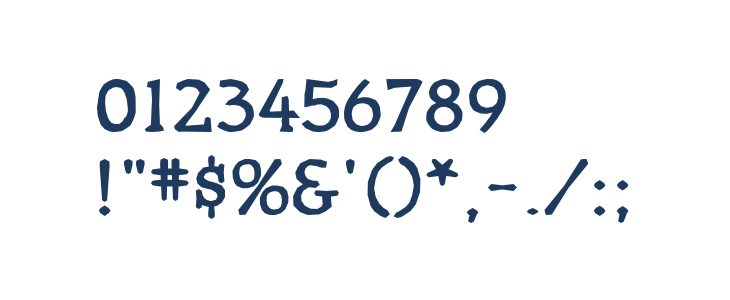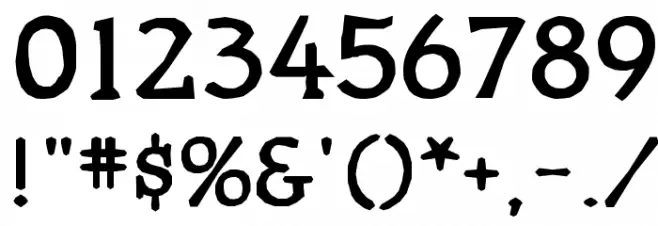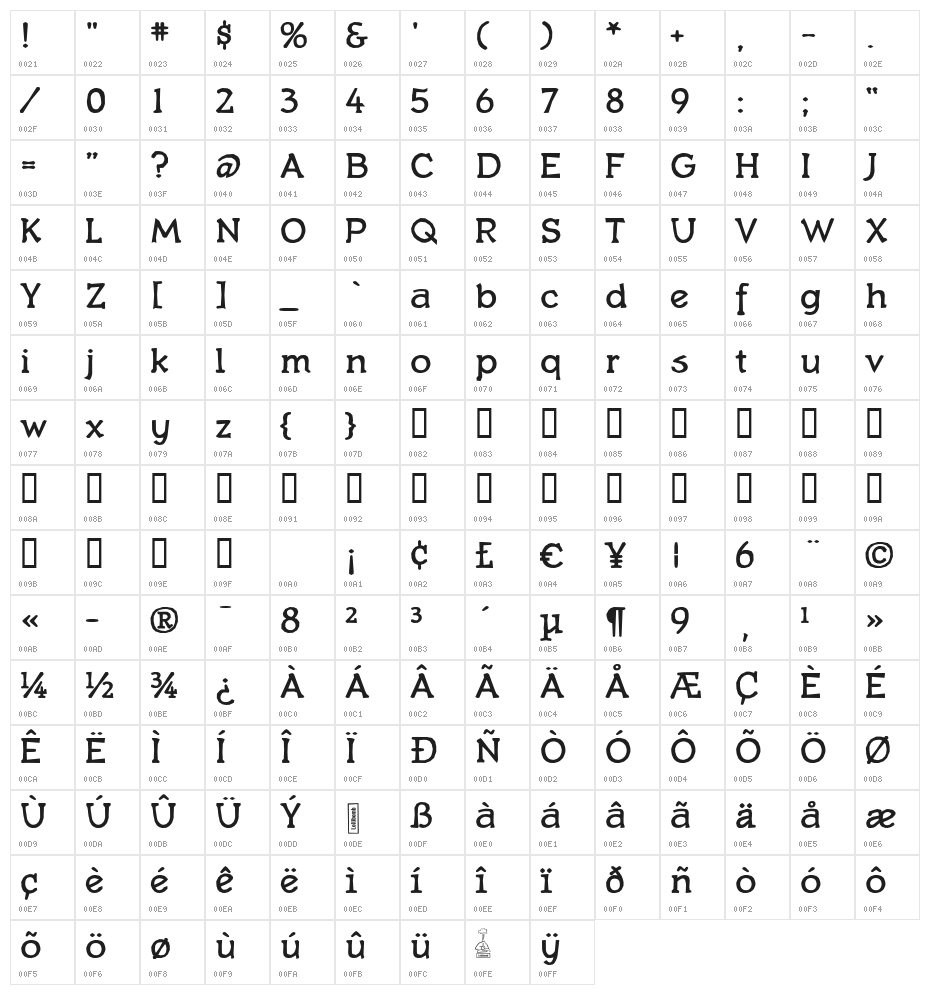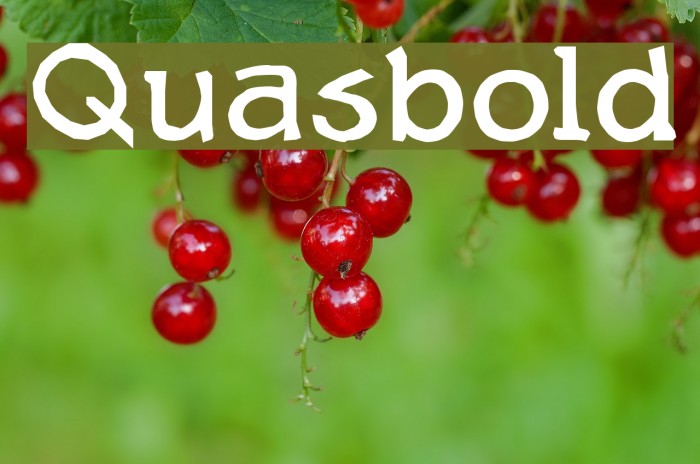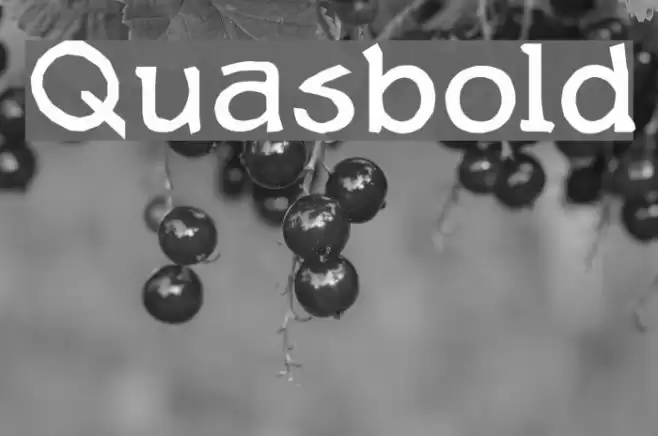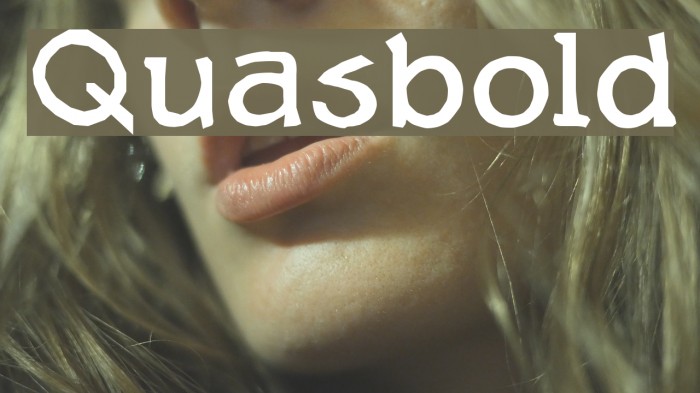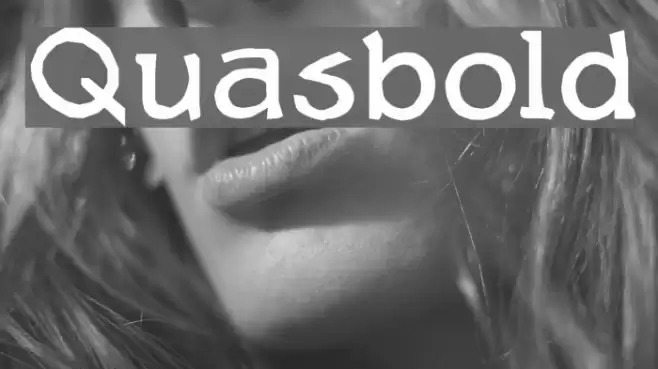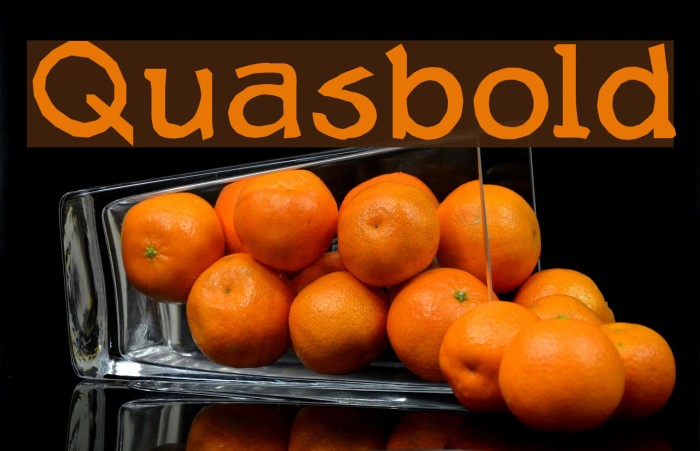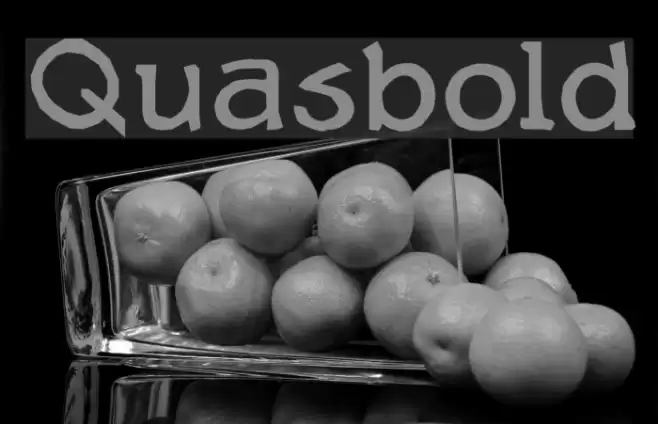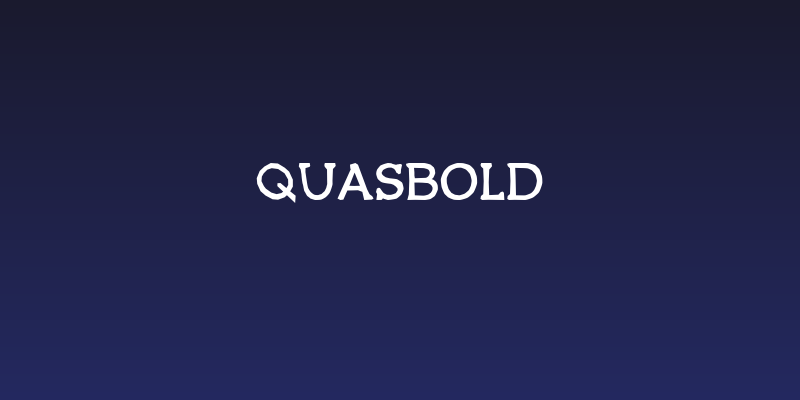
Quasbold Font
Quasbold Description
This font features a bold and playful design with a slightly irregular and hand-drawn appearance. The characters have a whimsical quality, with varying stroke widths that add a dynamic feel. The uppercase letters are robust and commanding, while the lowercase letters maintain a friendly and approachable look. The numerals are consistent with the overall style, offering a cohesive appearance across all characters. Special characters are well-integrated, maintaining the font's unique aesthetic. This font is ideal for projects that require a touch of personality and creativity.
| Overall Style | Playful, Creative, Hand-drawn |
| Proposed Projects | Ideal for children's books, playful branding, creative posters, and artistic invitations. |